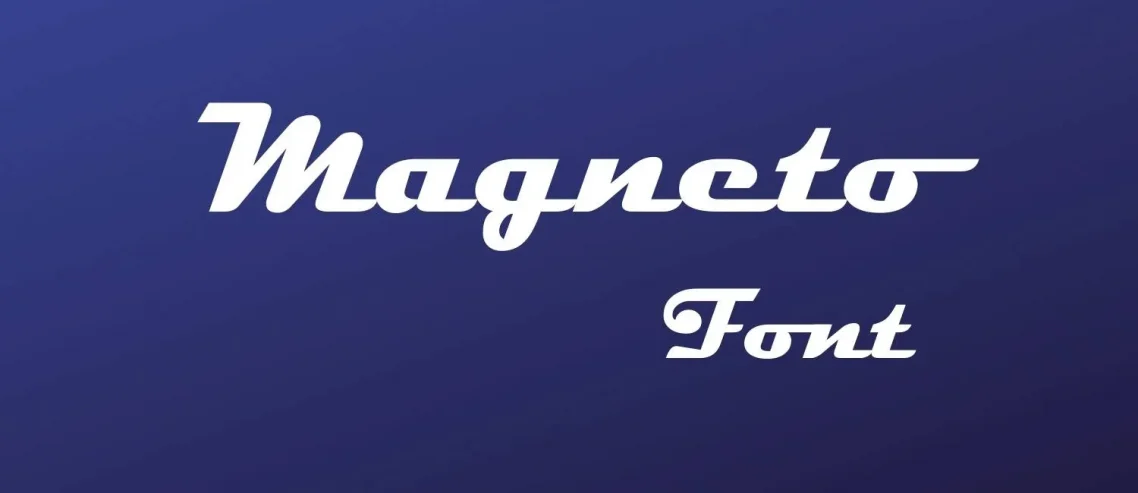
Magneto Font is a sans serif typeface designed by Stanley Morison and published by the British branch of Monotype from 1928 onwards.
The design is based on an earlier typeface called Arial, which was created in 1926 by MORISON and released by the British branch of Linotype. The apple chancery font makes a very lovely pair with this font.
Name | Magneto Font |
Designer | Stanley Morison |
Style | Fancy |
- Magneto Bold
- Magneto BoldExtended
- Magneto SuperBoldExtended